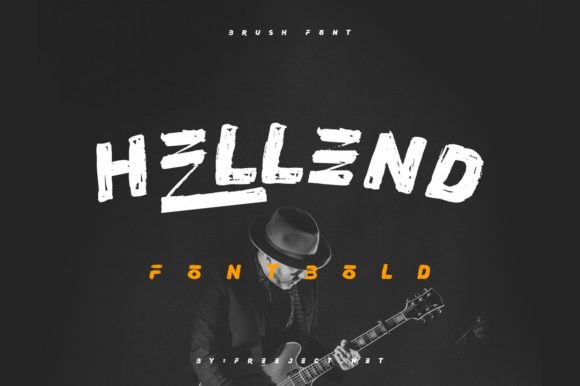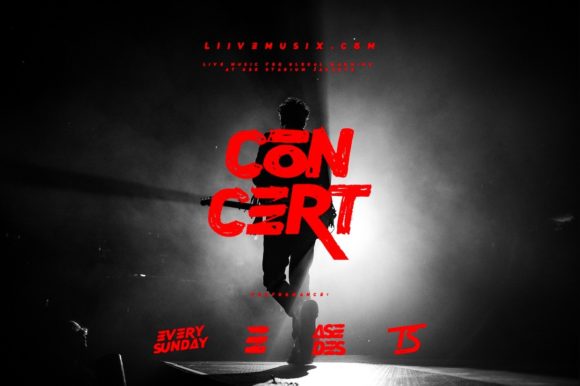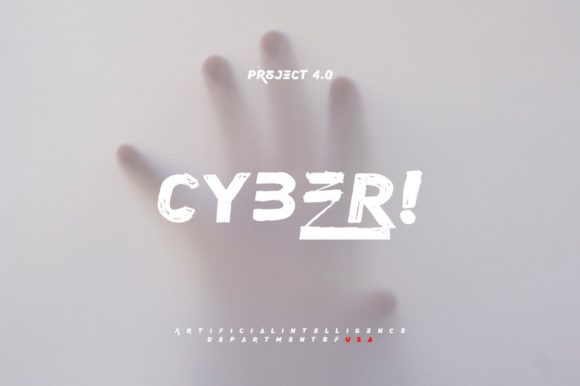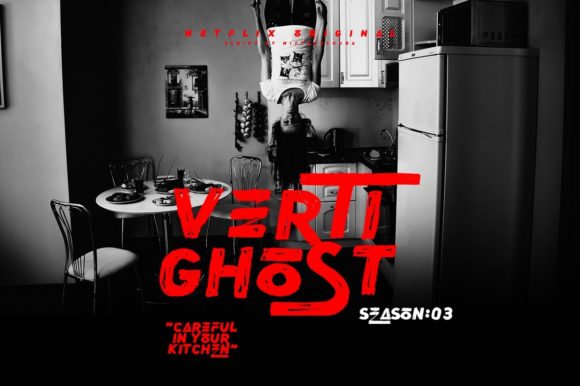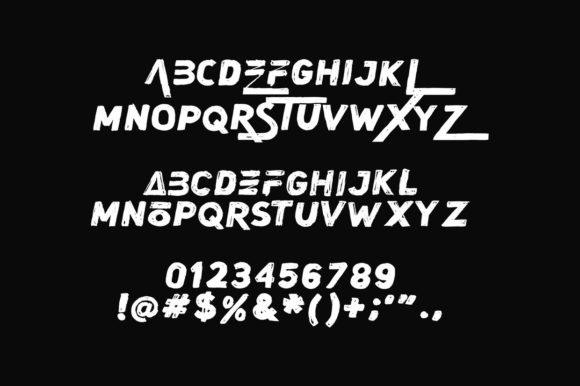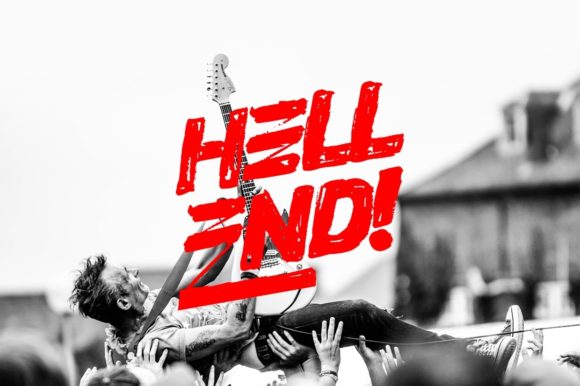
Hellend Font: Unleash Your Creativity with this Horror-Inspired Display Font
Are you a designer or crafter looking for a font that can add a touch of horror, action, and rock-themed edge to your designs? Look no further than Hellend Font, a cool display font that’s perfect for creating bold and eye-catching designs. In this article, we’ll dive into the features and benefits of Hellend Font, and explore how you can use it to take your designs to the next level.
What is Hellend Font?
Hellend Font is a hand-drawn display font that’s designed to inspire your creativity. It consists of both lowercase and uppercase letters that can be combined in a variety of ways to create unique and striking designs. Whether you’re working on a horror-themed project, an action-packed design, or a rock-inspired artwork, Hellend Font is the perfect choice.
The Making of Hellend Font
Hellend Font is a labor of love that’s been crafted using brushes and inks. The font’s hand-drawn nature gives it a distinctive and organic feel that’s perfect for designers who want to add a touch of personality to their work. The use of brushes and inks also gives Hellend Font a bold and expressive look that’s sure to grab attention.
Key Features of Hellend Font
So what makes Hellend Font so special? Here are some of its key features:
- Hand-drawn design: Hellend Font is crafted using brushes and inks, giving it a unique and organic feel.
- Lowercase and uppercase letters: The font consists of both lowercase and uppercase letters that can be combined to create a wide range of designs.
- Horror, action, and rock-themed: Hellend Font is perfect for designers who want to create bold and eye-catching designs with a horror, action, or rock theme.
- Versatile: The font can be used for a wide range of design projects, from posters and flyers to logos and branding.
How to Use Hellend Font in Your Designs
So how can you use Hellend Font in your designs? Here are some ideas to get you started:
- Create a horror-themed poster: Use Hellend Font to create a bold and eye-catching poster for a horror movie or event.
- Design a rock-inspired logo: Use Hellend Font to create a logo for a rock band or music-related business.
- Make an action-packed flyer: Use Hellend Font to create a flyer for an action-packed event or promotion.
- Add a touch of horror to your branding: Use Hellend Font to add a touch of horror or edginess to your branding or packaging.
Tips and Tricks for Getting the Most out of Hellend Font
Here are some tips and tricks for getting the most out of Hellend Font:
- Experiment with different combinations: Don’t be afraid to experiment with different combinations of letters and design elements to create a unique look.
- Use it with other fonts: Hellend Font can be paired with other fonts to create a bold and eye-catching design.
- Play with colors and textures: Use different colors and textures to add depth and interest to your design.
Hellend Font is a cool display font that’s perfect for designers and crafters who want to add a touch of horror, action, and rock-themed edge to their designs. With its hand-drawn design, versatile letterforms, and bold and expressive look, Hellend Font is the perfect choice for a wide range of design projects. Whether you’re working on a horror-themed poster, a rock-inspired logo, or an action-packed flyer, Hellend Font is sure to inspire your creativity and help you create a design that’s truly unforgettable.